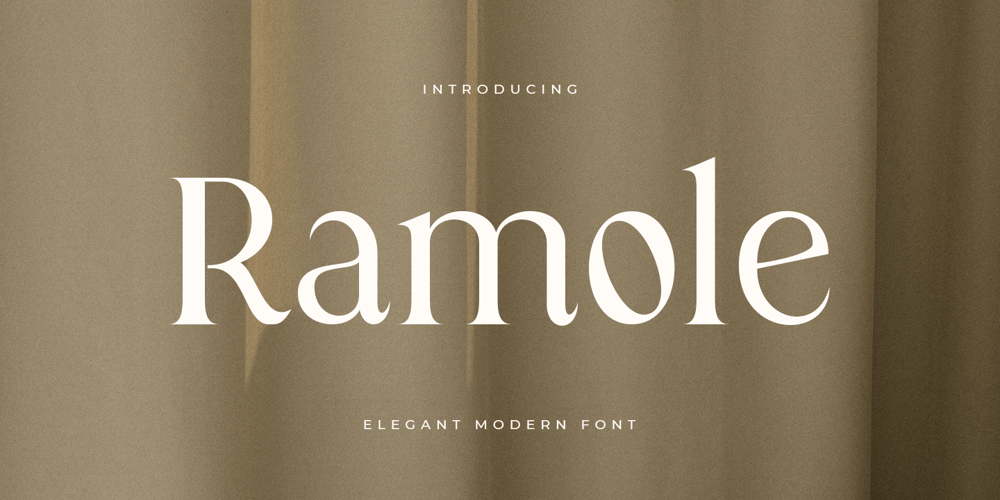
Ramole Style Font Family was designed by Zamroni Hamzah and published by Sensatype Studio. Ramole Style contains 1 styles and family package options. Ramole is a Elegant Modern Serif FontA new Serif font that we created special for logo and branding needs, with extra unique shape and ligatures that will add your brand value. It so nice to leverage designer or product owner that need solutions to make their design look more gorgeous and modern. And specially for Ramole font, We prepared any alternate characters to help you create unlimited variations for your creative needs specially for logotype or wordmark.Ramole Elegant Modern Serif font ready with: Any options to get creative Preview as a inspirations that you can do with Ramole font Ready with Lowercase and Uppercase characters Wish you enjoy our font. ๐